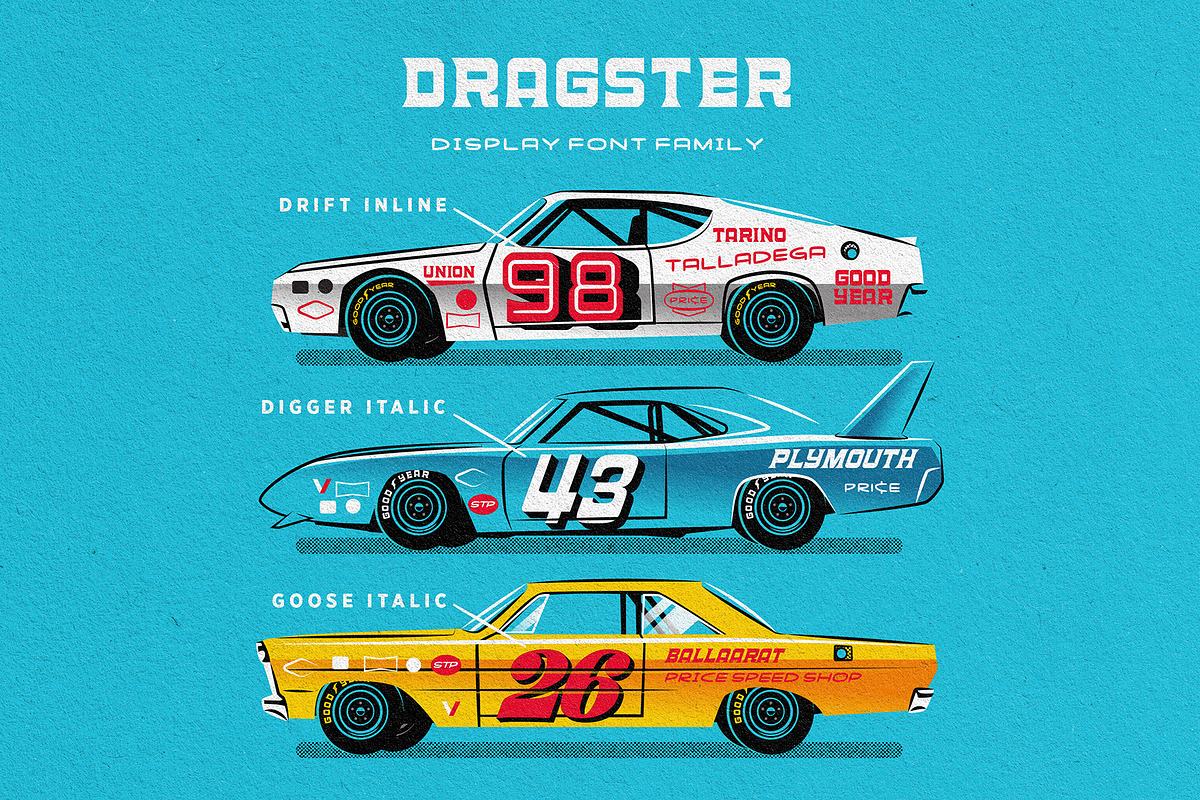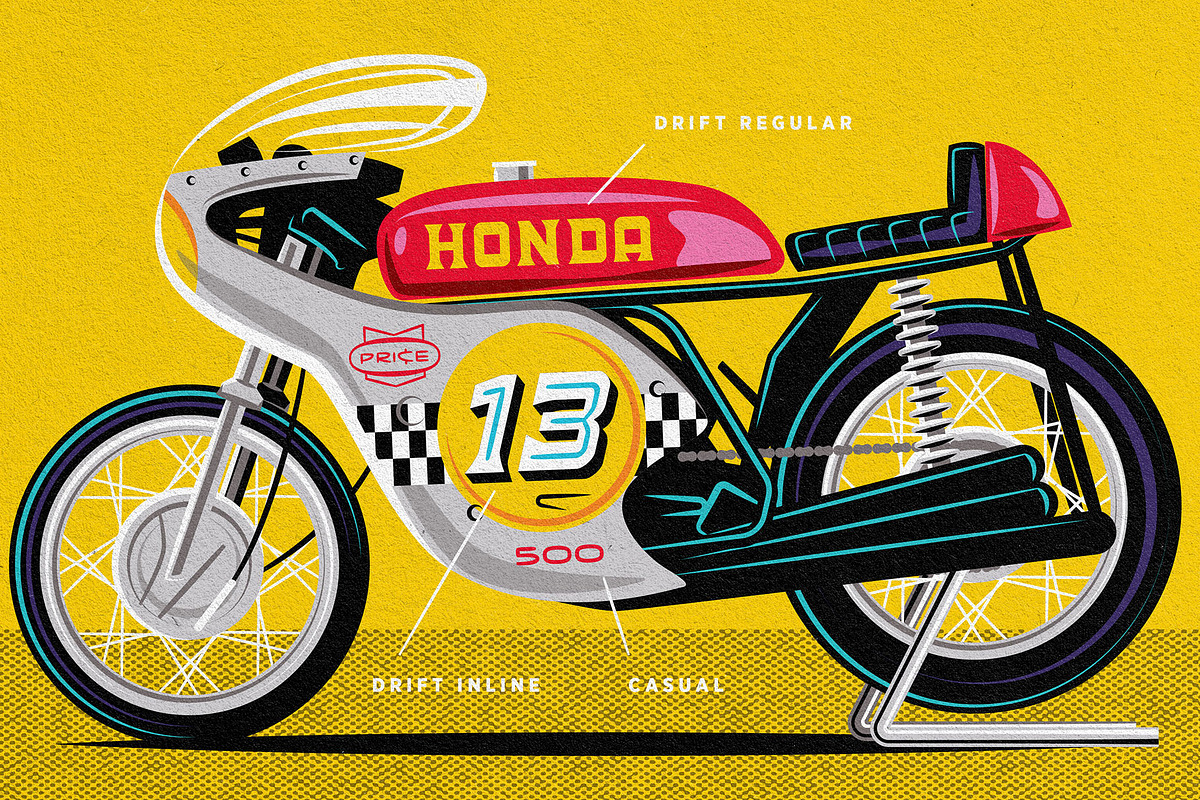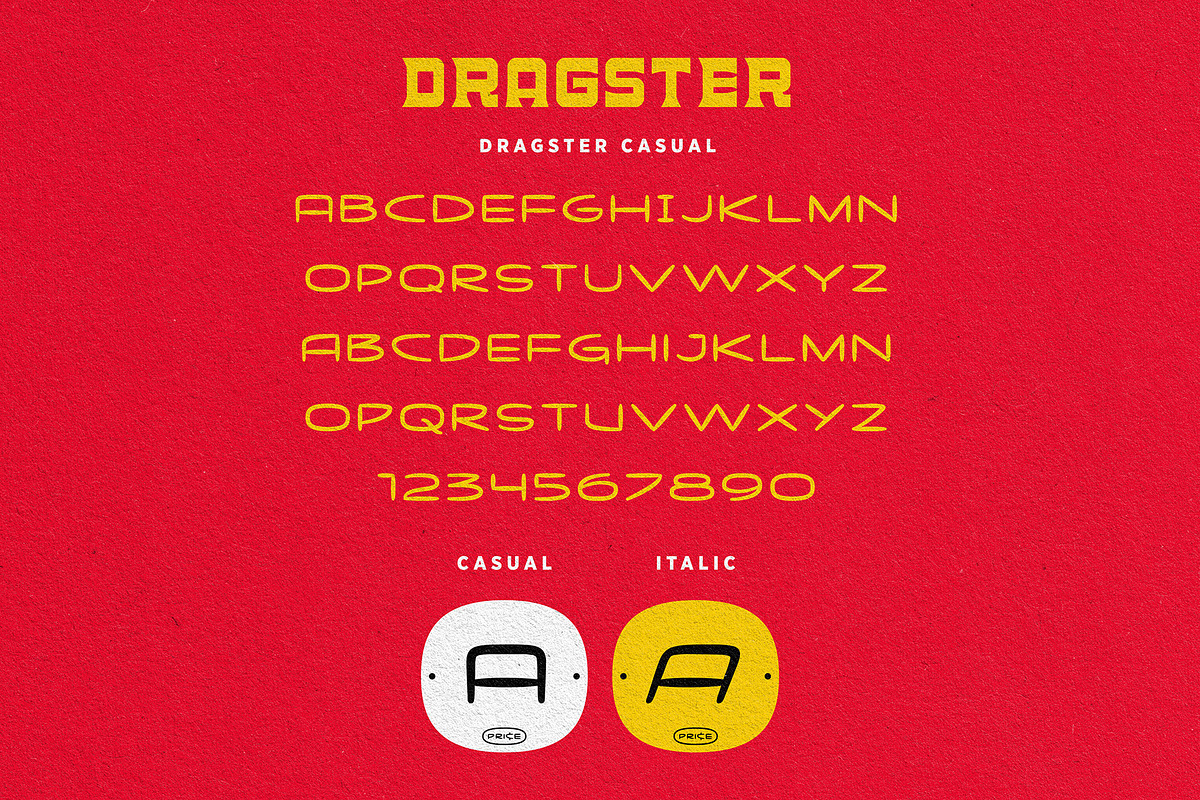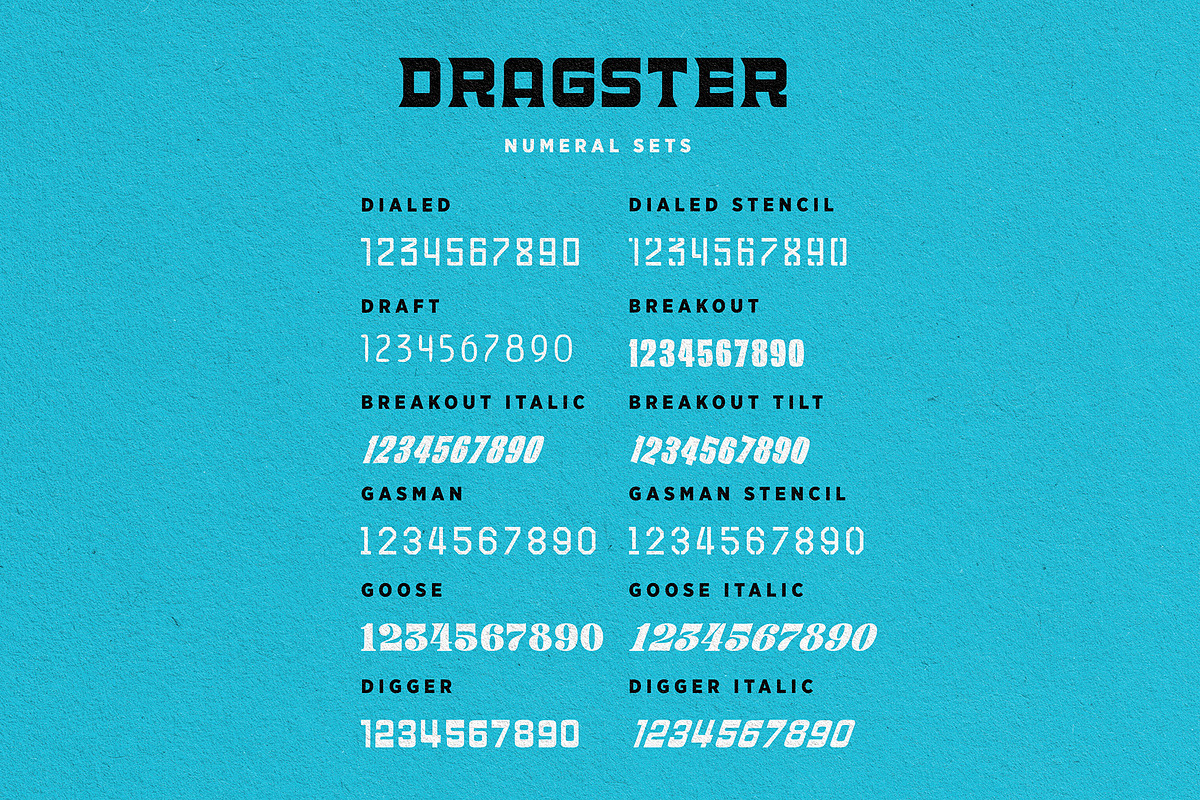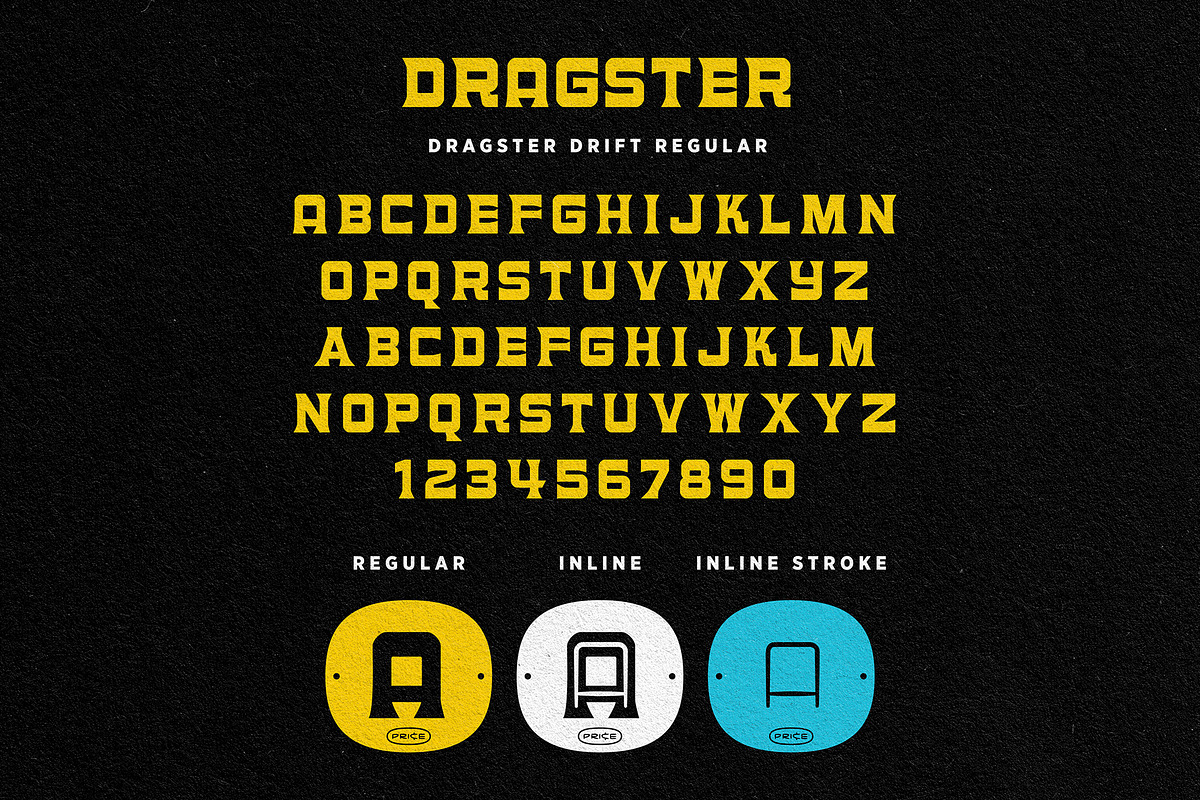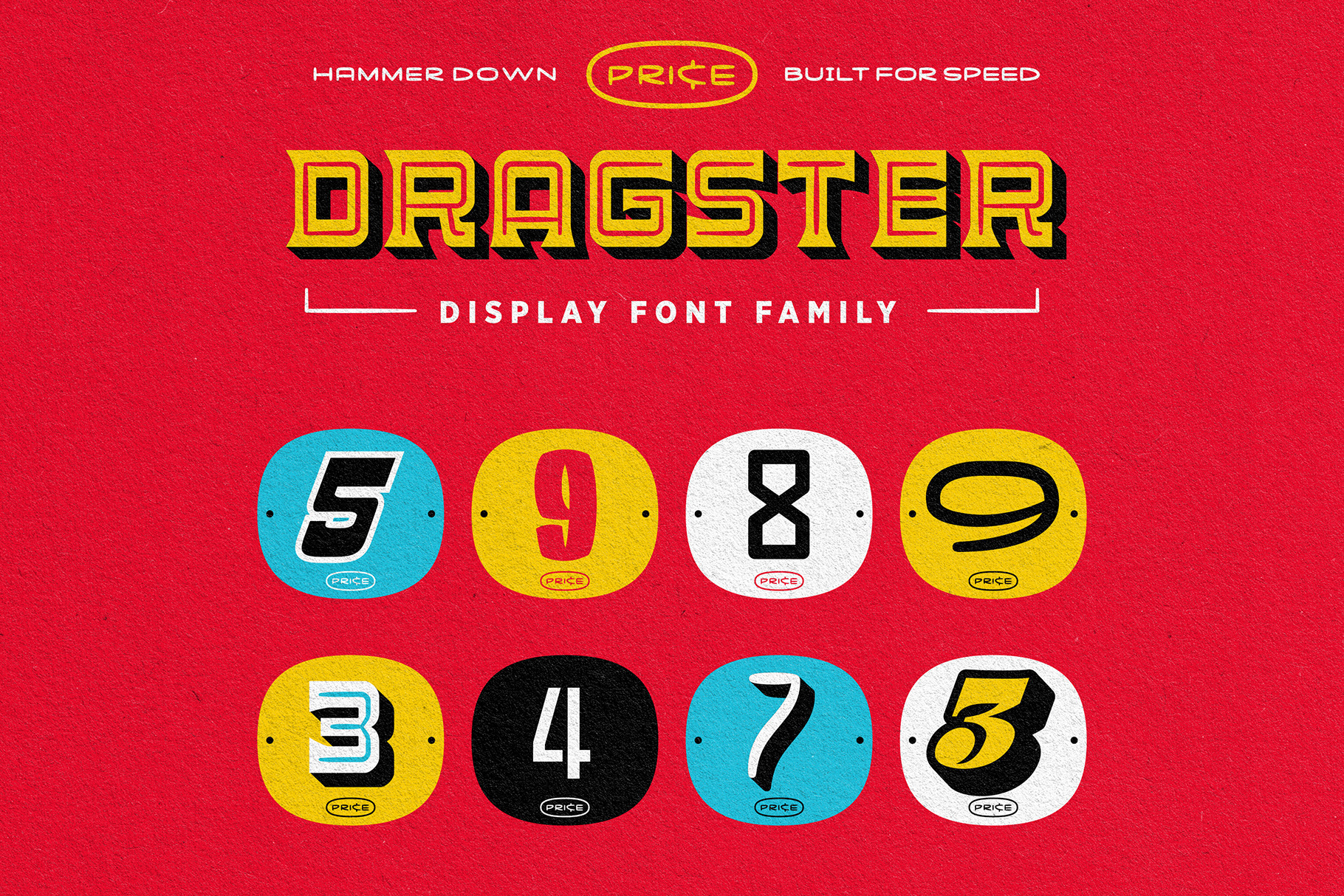
DRAGSTER FONT FAMILY
DRAGSTER is a display font family created by Australian Illustrator Travis Price. Inspired by old motor racing signage and numerals.
DRAGSTER comes in 2 alphabets and 6 Numeral sets that also include some stencil and italic variations…Perfect for typesetting your race plate, helmet, doors, bonnet….or pimping your mums car!!!
PLEASE NOTE: SOME FONTS ARE NUMERALS ONLY.